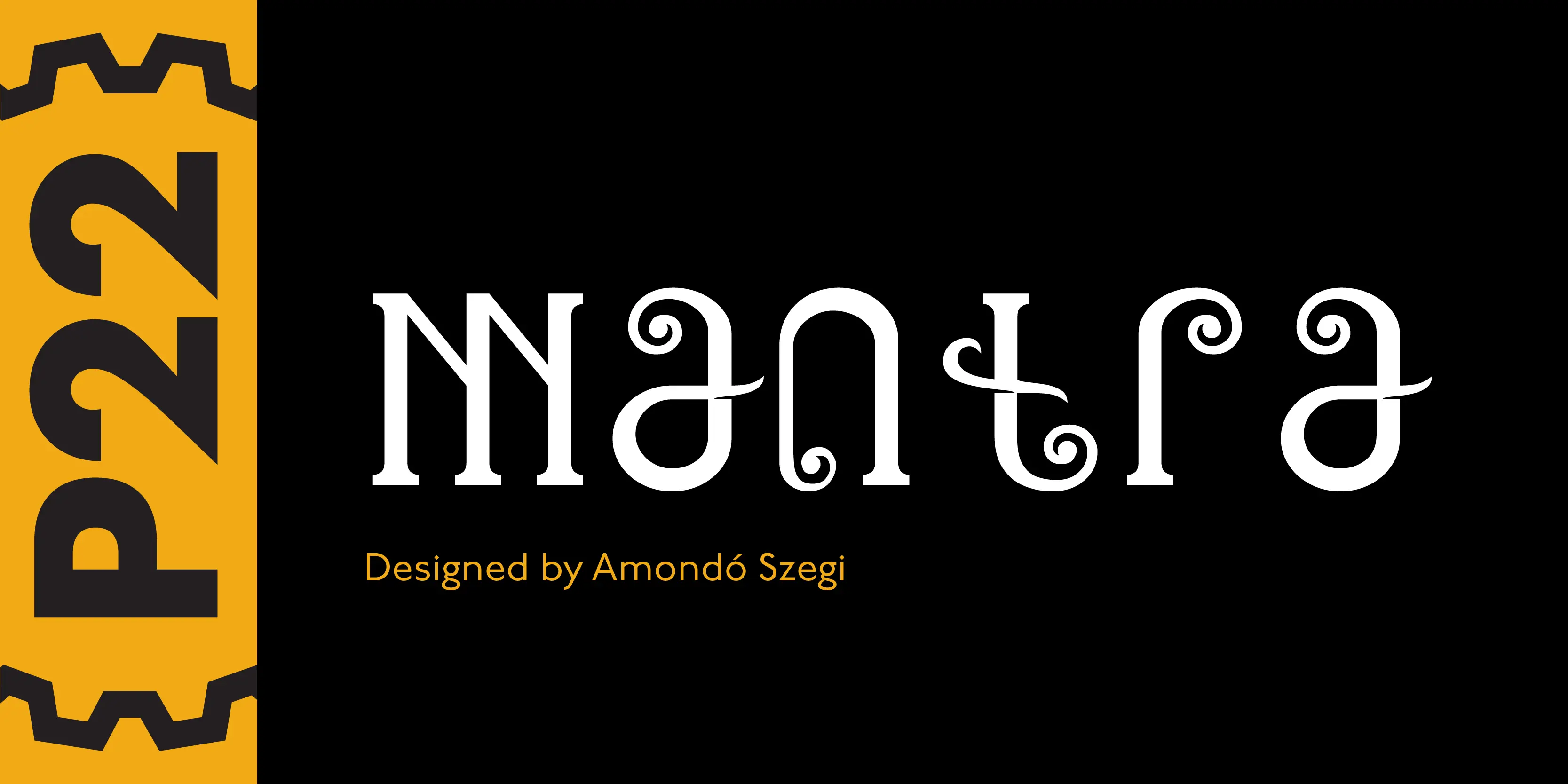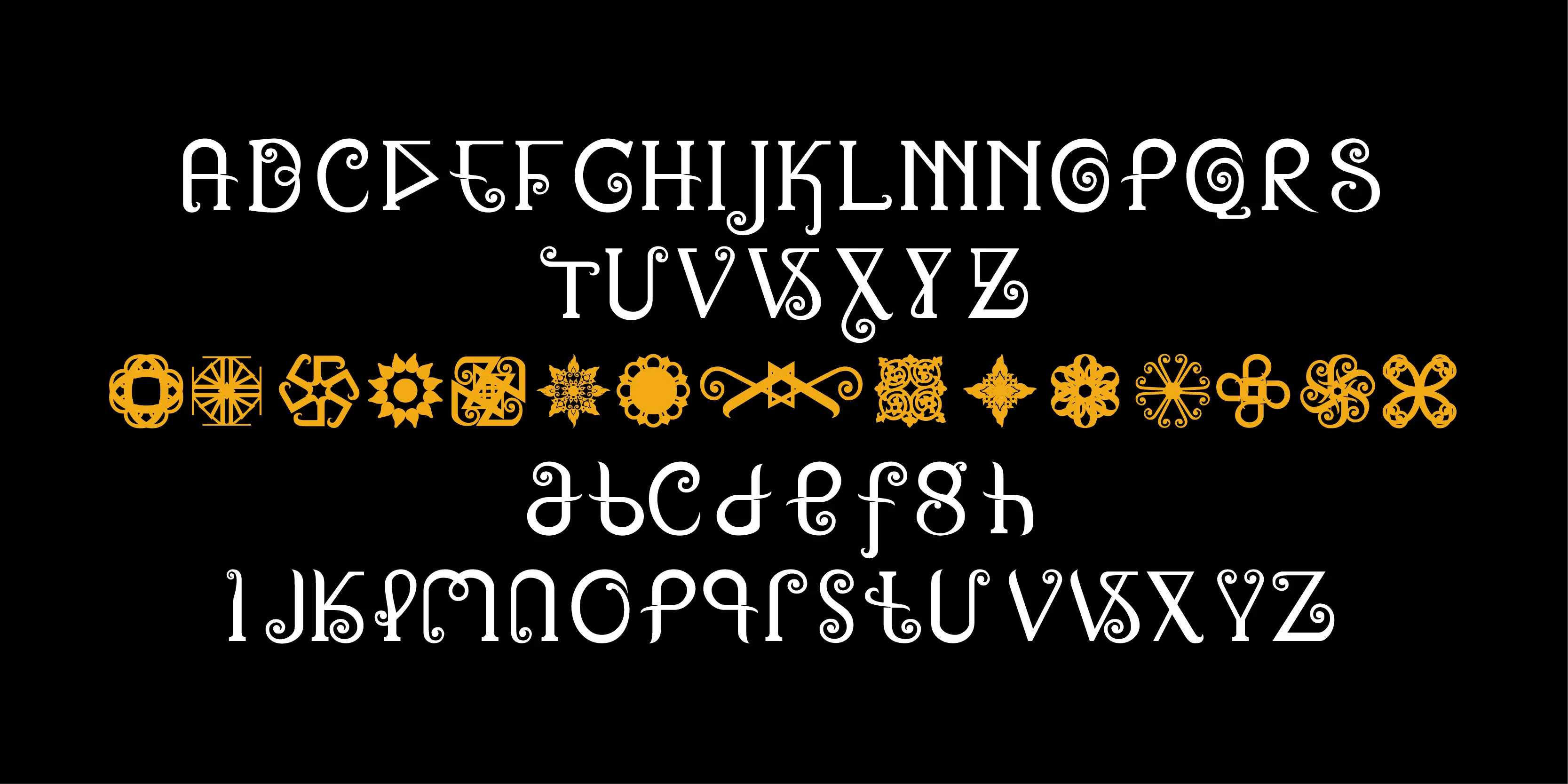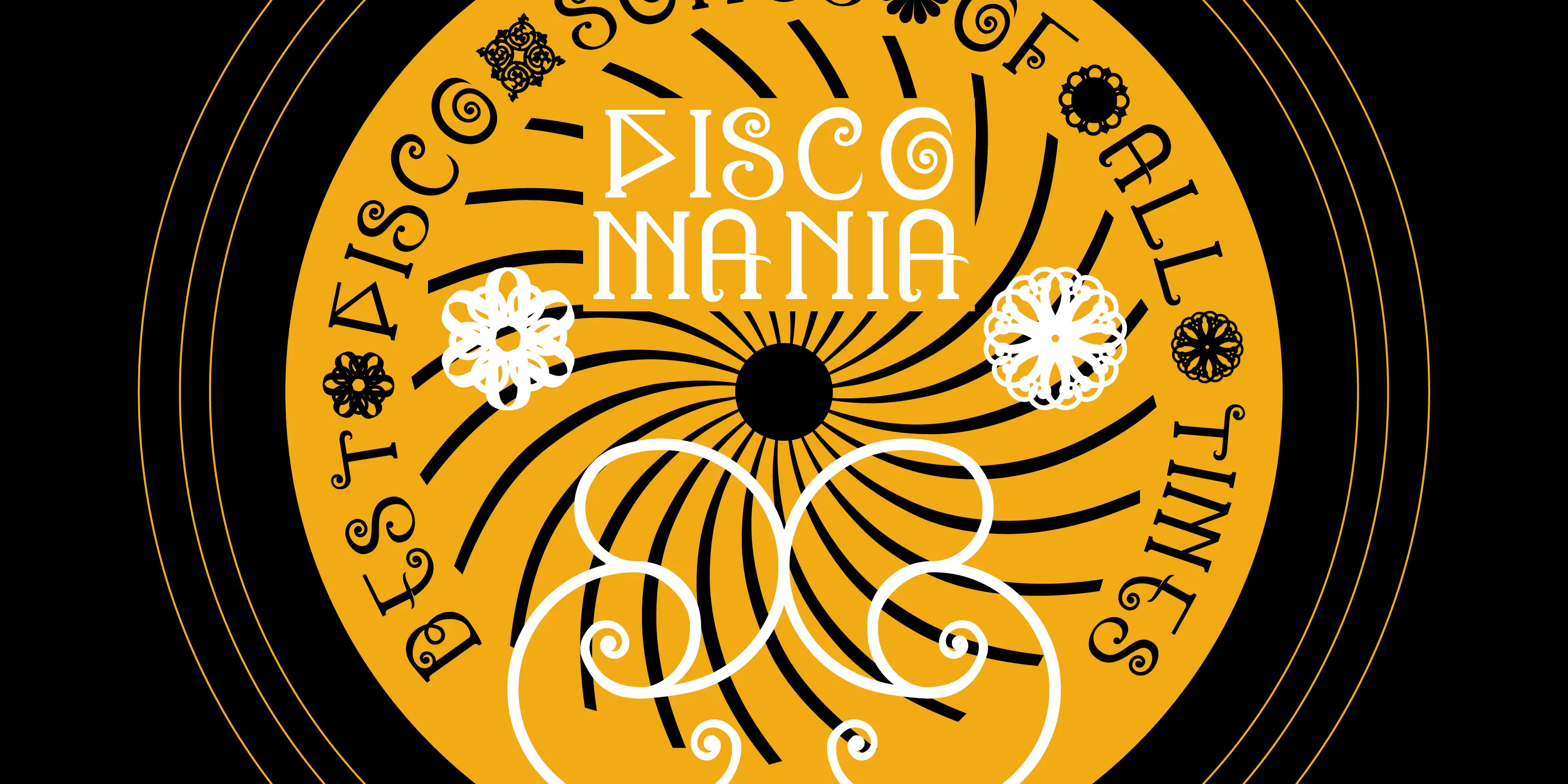
Mantra Font Family
Mantra
Mantra is a blending of the Roman alphabet with Tibetan calligraphy and Hungarian folk influences to create a true hybrid of world cultures in this striking display font. Mantra Xperts includes several alternate letters and ligatures along with three dozen ornamental mandalas.